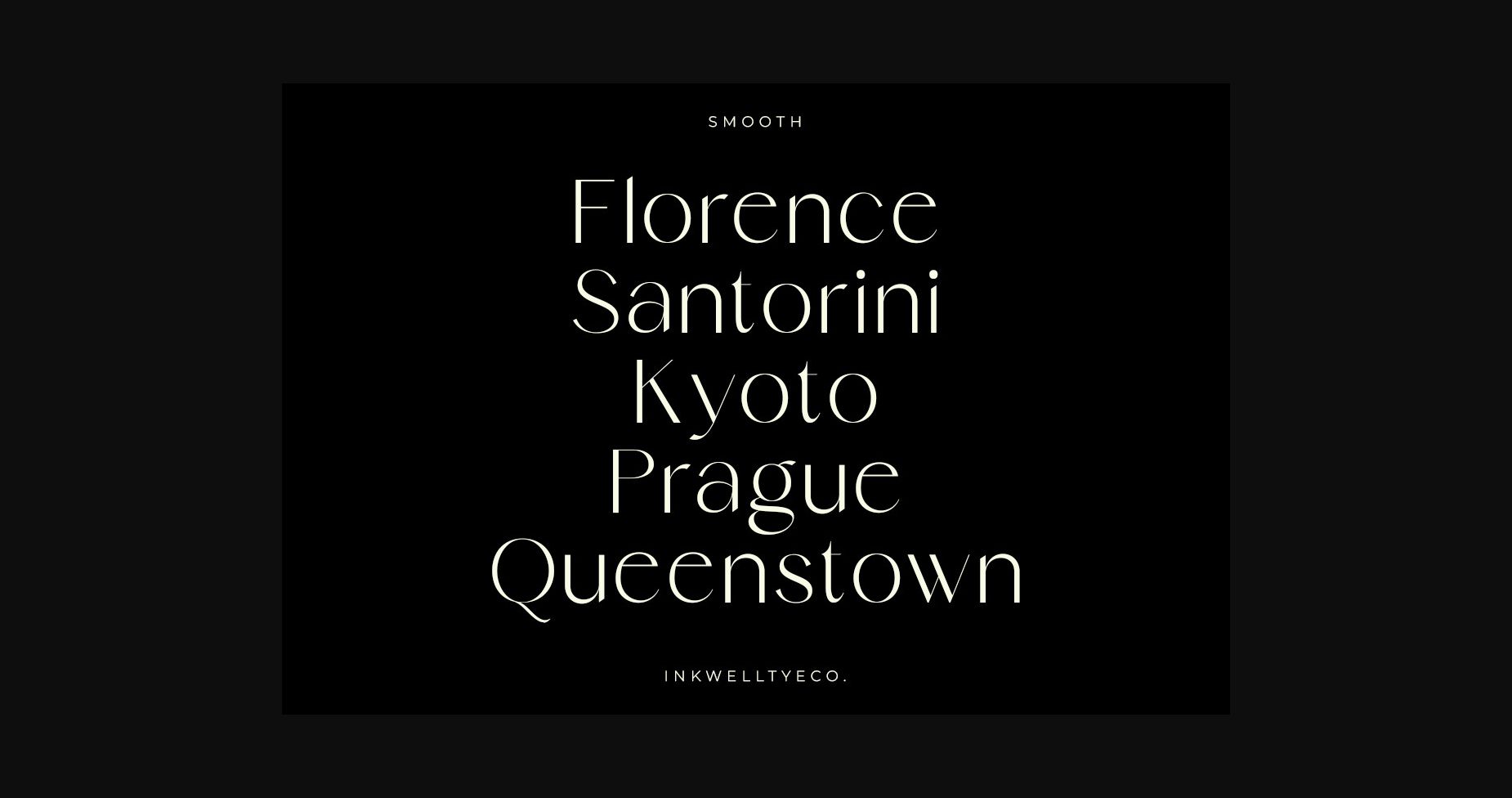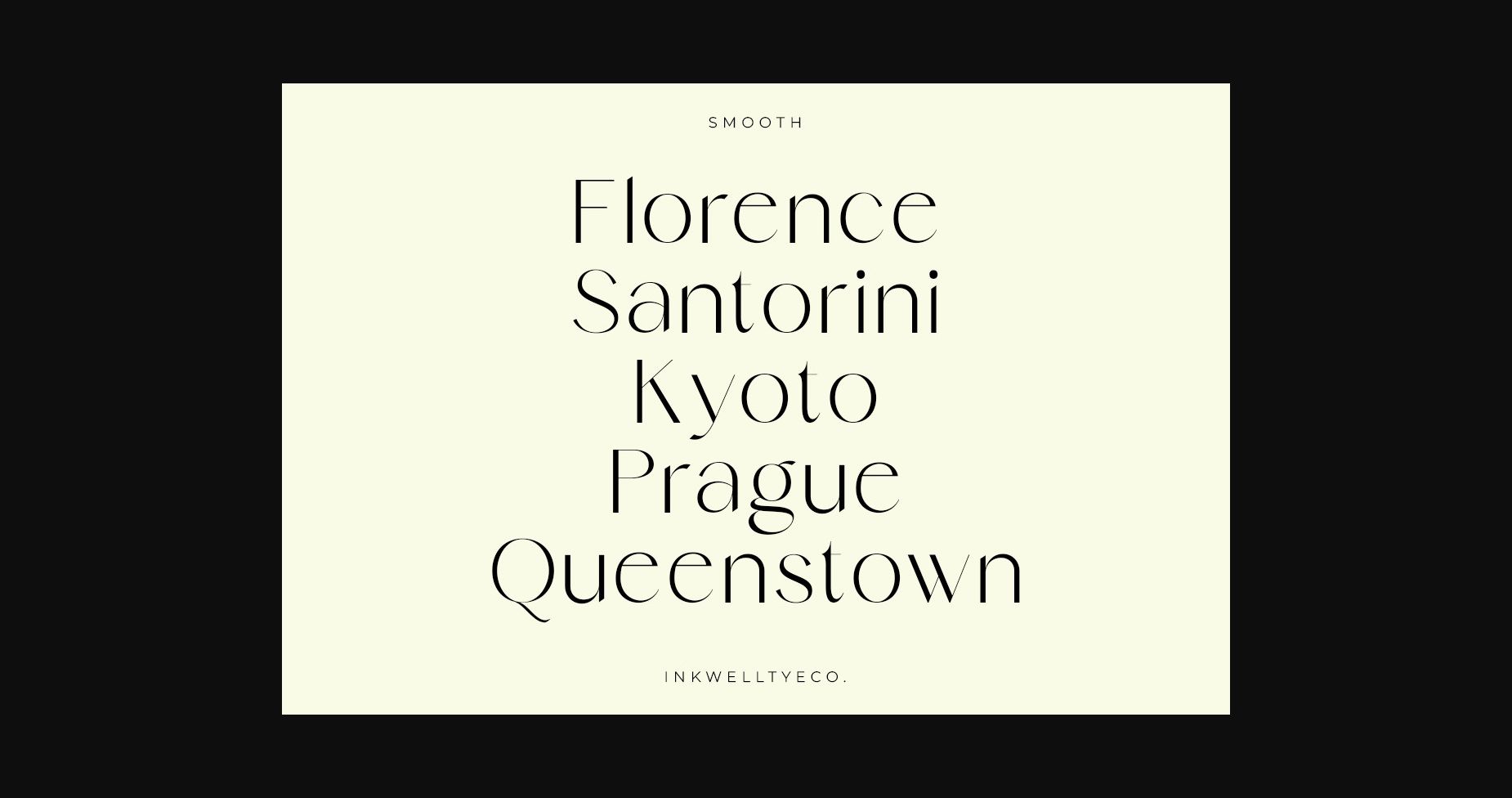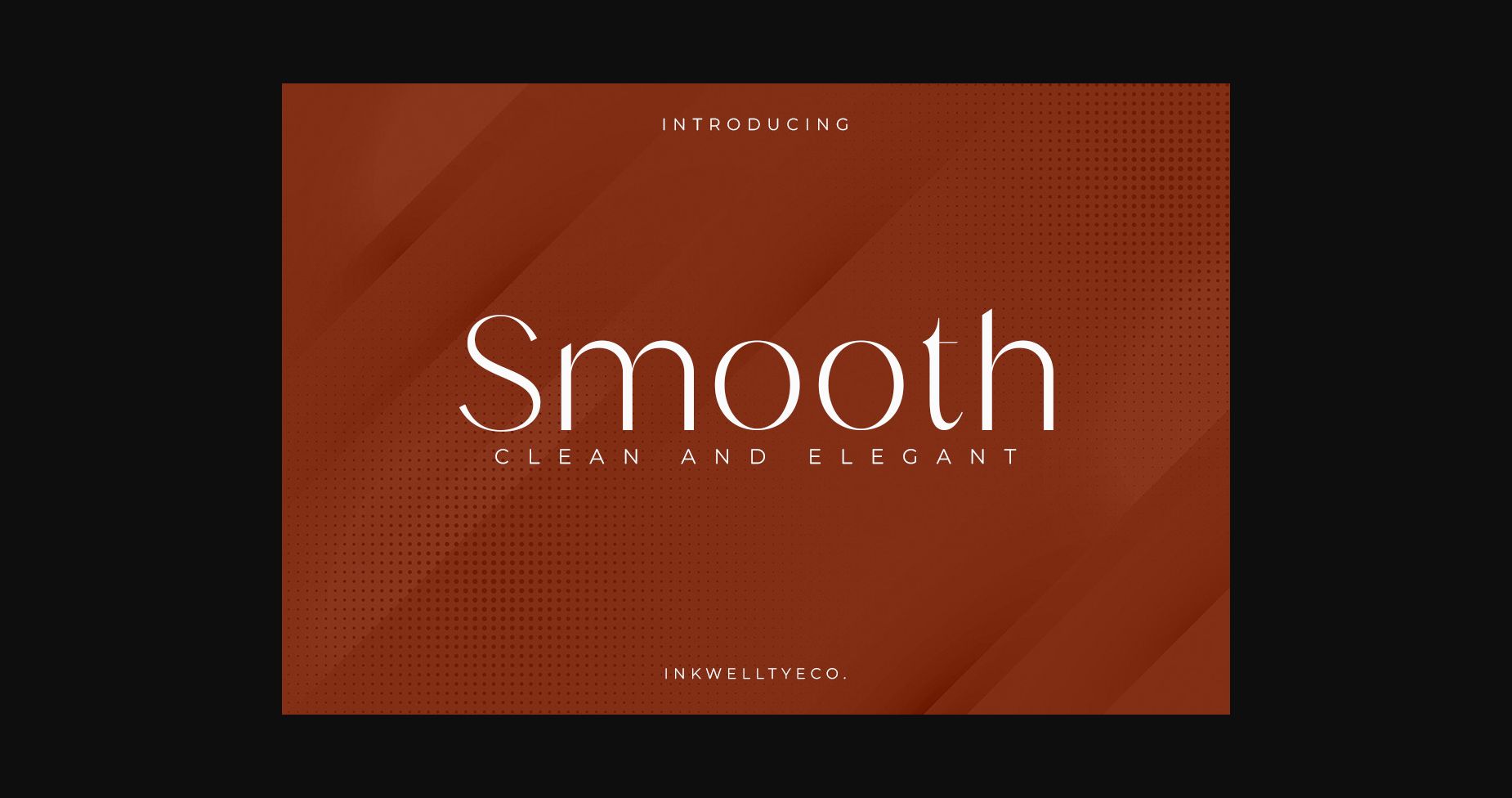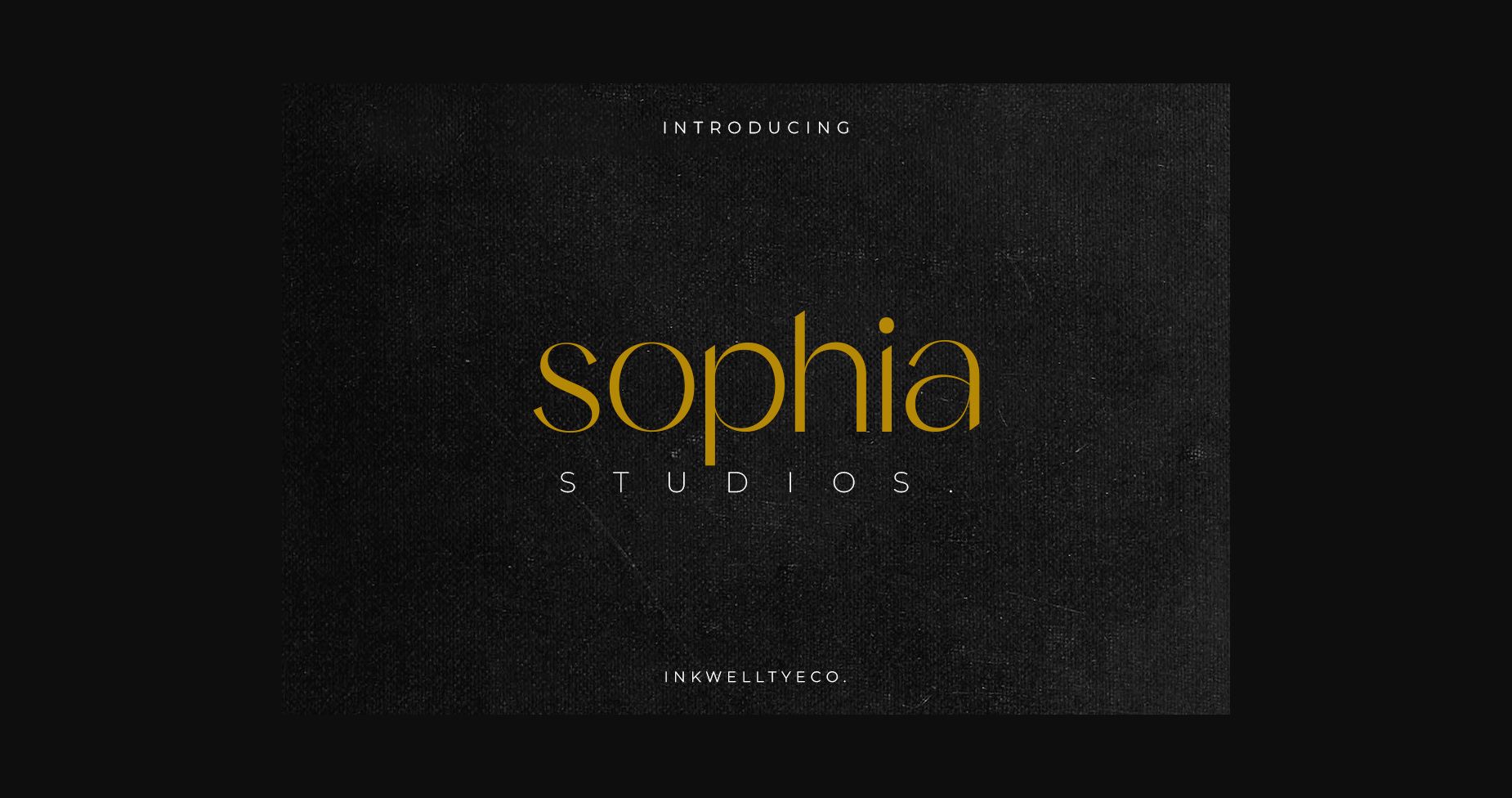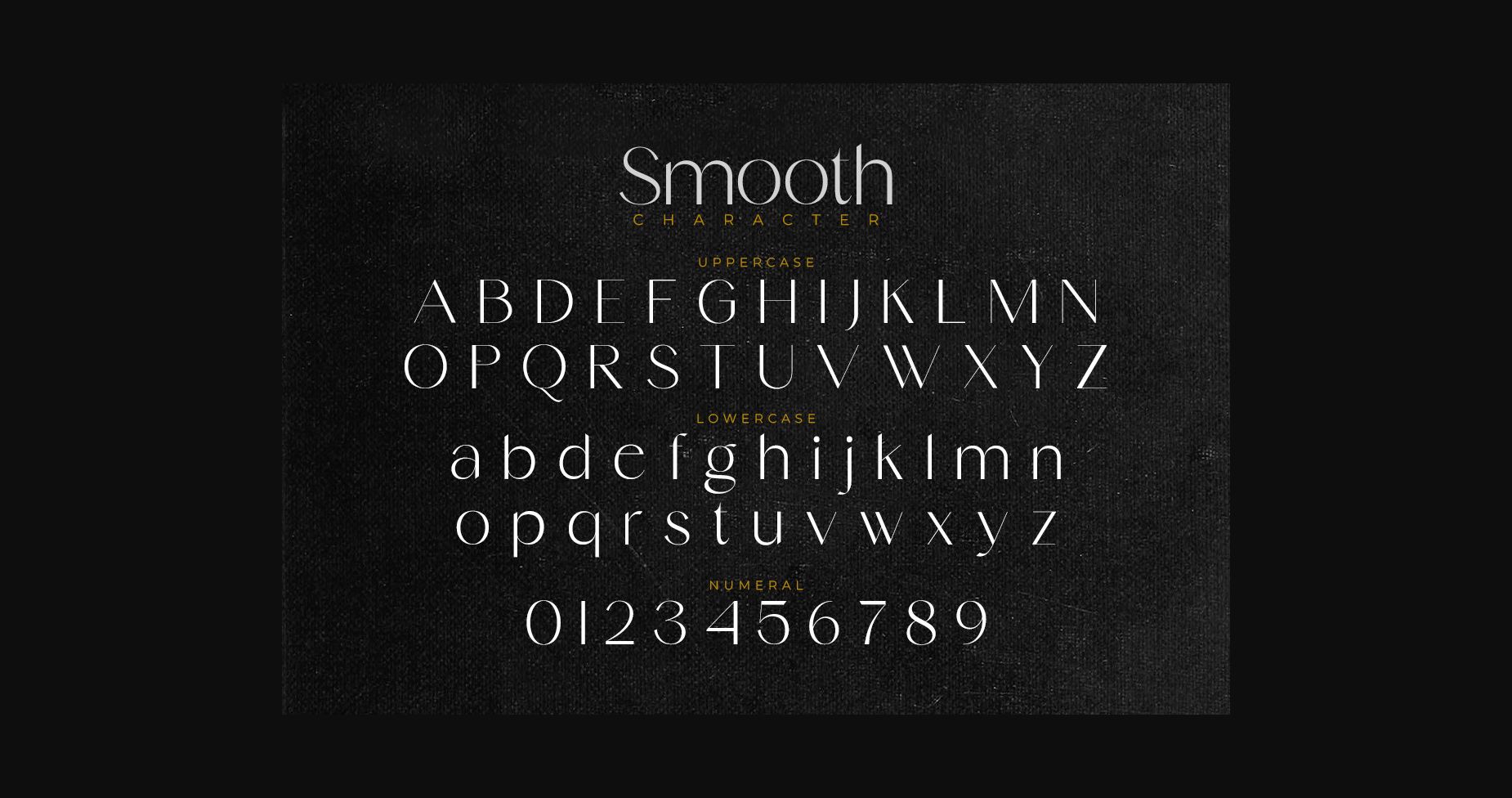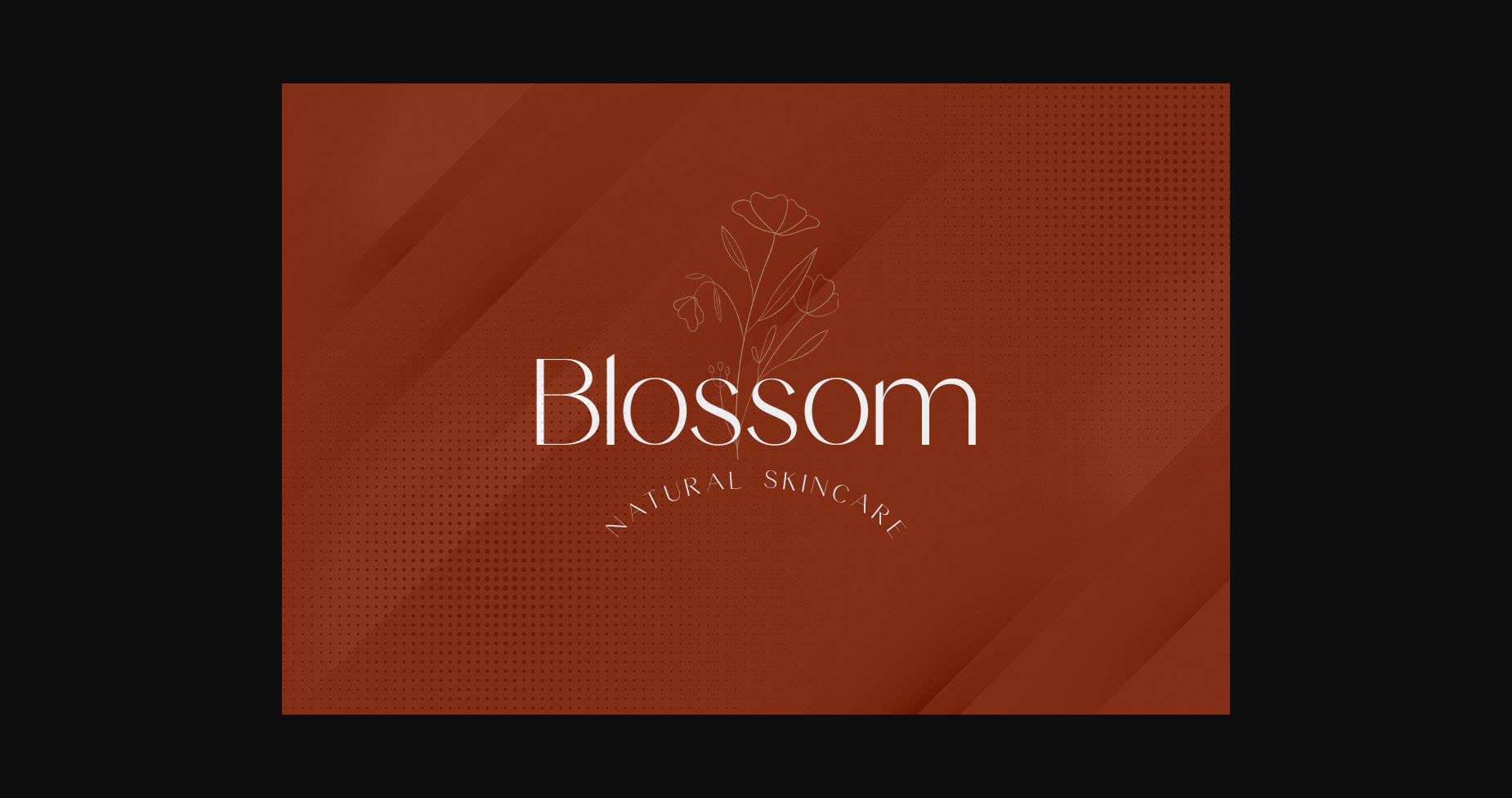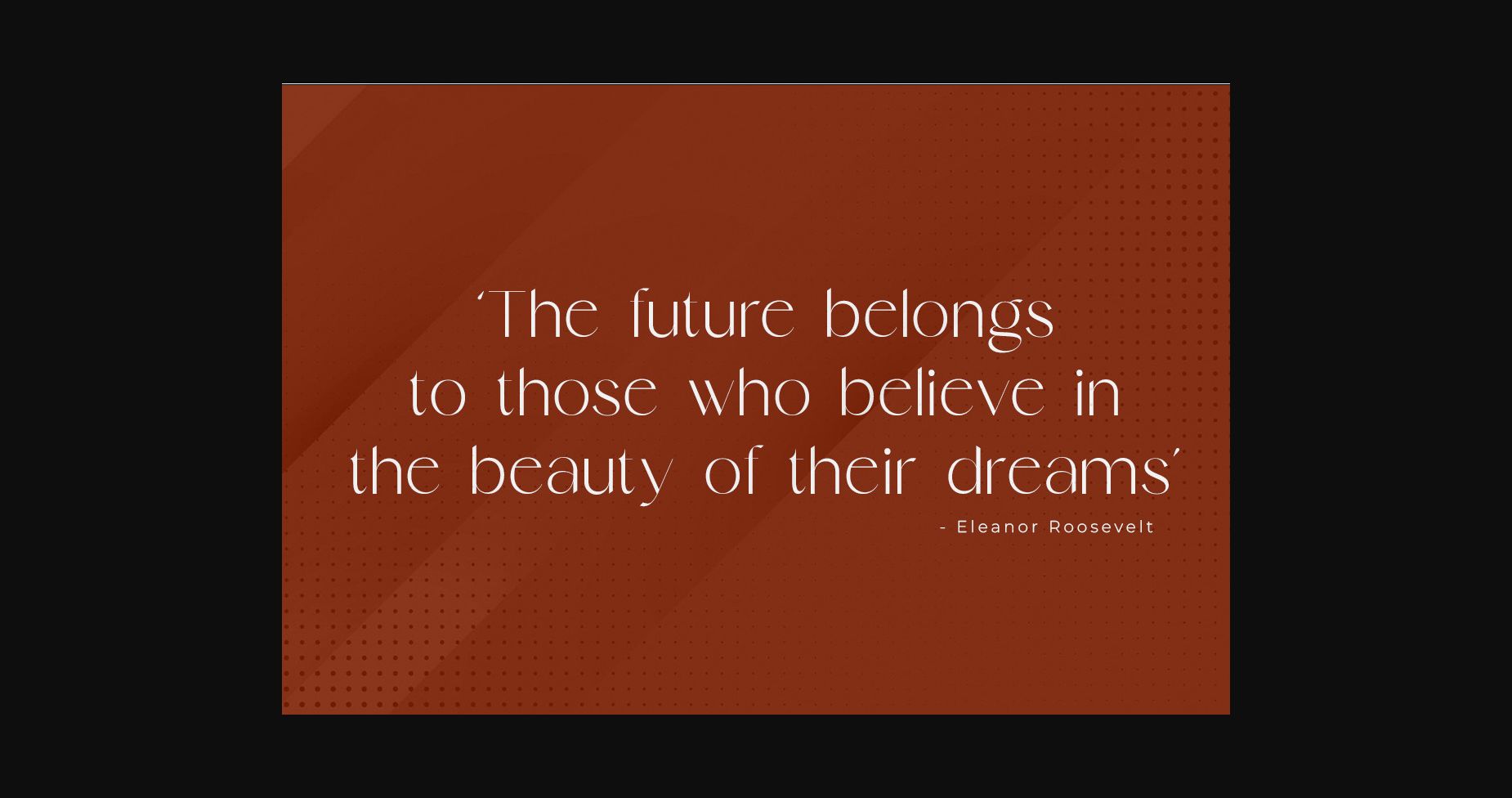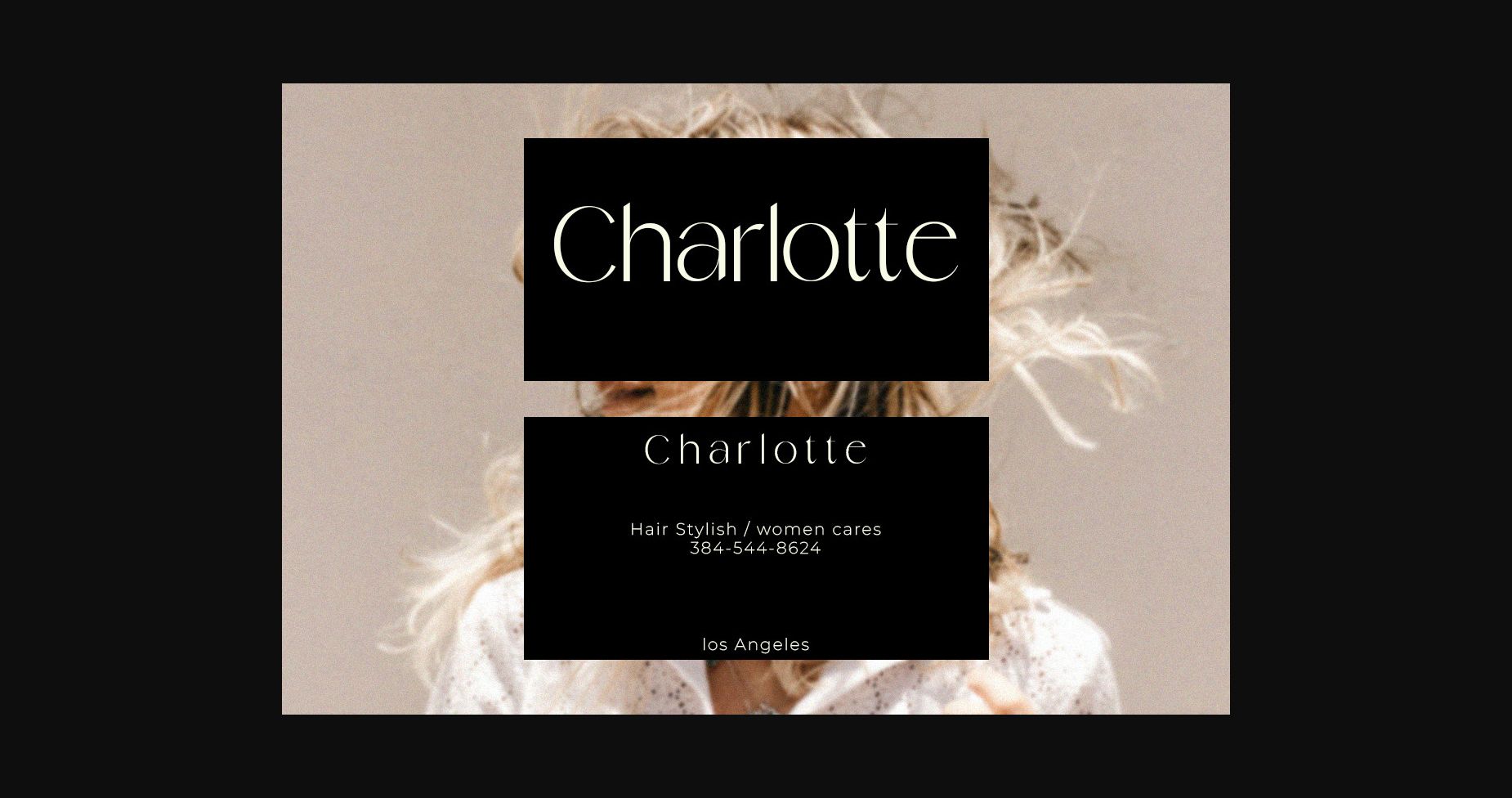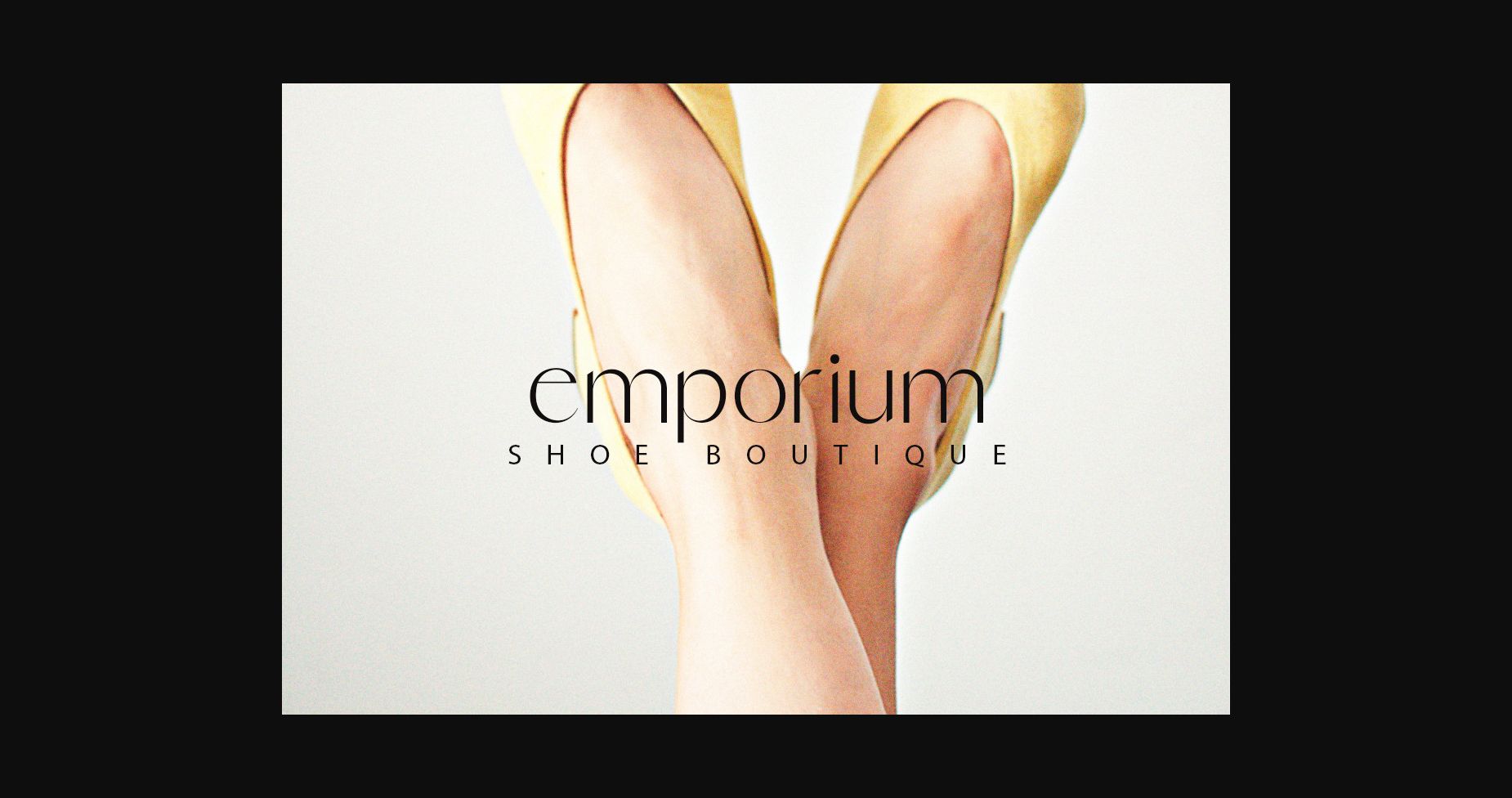
HomeSans Serif FontsSmooth Font Sans Serif Fonts Smooth Font FacebookXPinterestWhatsApp 1 of 11 ... Smooth Font Poster 2... Smooth Font Poster 3... Smooth Font Poster 4... Smooth Font Poster 5... Smooth Font Poster 6... Smooth Font Poster 7... Smooth Font Poster 8... Smooth Font Poster 9... Smooth Font Poster 10... Smooth Font Poster 11... About Smooth Font Smooth is a sans serif font that carries the theme of cleanliness and luxury. This font combines the simplicity of design with a touch of glamor that creates an elegant and charming look. DOWNLOAD NOW People also explored Schwaben Font Okinawa Sunset Font Fishing Grounds Font Callimathy Font Baby Love Font Tiger Love Font Anthony Hunters Font Dealerplate California Fearsome 353 0 TagsSmoothSmooth Font Previous articleEagles FontNext articleGroprod Font LEAVE A REPLY Cancel reply Comment: Please enter your comment! Name:* Please enter your name here Email:* You have entered an incorrect email address! Please enter your email address here Website: Save my name, email, and website in this browser for the next time I comment. Personal Use Free Monogram Veg Personal Use Free Read more about this font Valentines Day Personal Use Free Read more about this font Winner Personal Use Free Read more about this font Peristiwa Font Personal Use Free Read more about this font BLOG How to Install and Use Fonts on Windows, macOS, and Web Projects How to Install and Use Fonts on Windows, macOS, and Web Projects Fonts are a crucial part of design and branding. Whether you’re designing a... How to Cut Any Font on Cricut: Convert a Font to SVG (Free) Free vs Paid Fonts: Why Investing in Premium Fonts Is Worth It Using Fonts in Digital Marketing: Tips to Strengthen Your Brand Identity